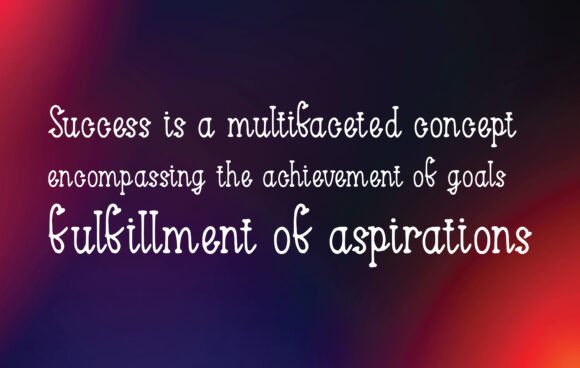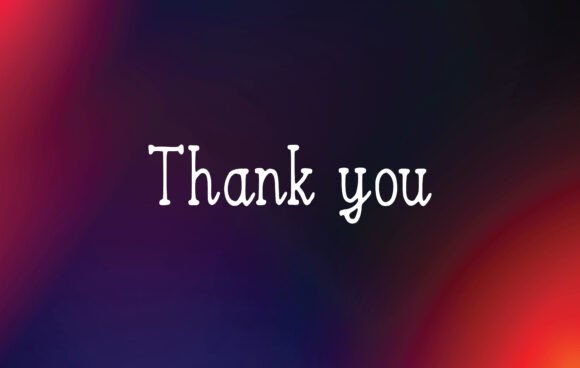
Unlock Your Creative Potential with Beau Font
Have you ever been in a moment of pure creative bliss, where the ideas just flow and your imagination knows no bounds? For designers, this feeling is a dream come true. And, what if you had the perfect tool to enhance this experience? Enter Beau Font, a beautiful handwritten font designed to elevate your creative ideas to new heights.
This stunning font is the perfect choice for crafting eye-catching logos, branding, and quotes that leave a lasting impression. Whether you’re working on a personal project or a client’s brief, Beau Font’s versatility and charm make it an invaluable asset in your design toolkit.
Key Features of Beau Font
- Size: The font is available in a single weight, making it ideal for use in various design projects.
- Resolution: Beau Font is designed to be scalable and legible at resolutions up to 1200 dpi.
- Unique Characteristics: Beau Font features a unique blend of modern and classic elements, with a focus on elegant lines and subtle details.
- Character Set: The font includes a comprehensive character set, including Latin, Greek, and Cyrillic alphabets, as well as punctuation and symbols.
- Language Support: Beau Font supports a wide range of languages, including English, French, German, Italian, and many others.
Beau Font Review
Beau Font is a beautiful and elegant typeface that has the potential to elevate any design project. Here’s my honest review.
- Elegant and refined design that’s perfect for high-end branding and luxury goods.
- Beautifully crafted letterforms with subtle flourishes that add a touch of sophistication.
- Great legibility, making it perfect for body text as well as headlines.
- Supports a wide range of languages, making it a great option for international brands.
- Limited font weight options, which may not be suitable for projects that require a lot of contrast.
- Not ideal for display-heavy designs, as the font can get lost in a sea of bold typography.
- Some users may find the font too ornate or busy for certain projects.
Beau Font is a great addition to any designer’s toolkit, but it’s not a one-size-fits-all solution. It’s perfect for projects that require elegance and sophistication, but may not be the best choice for more casual or display-heavy designs.
Beau Font is ideal for:
– Creating elegant, high-end branding materials
– Designing stylish, modern business cards
– Adding a touch of sophistication to presentations and reports
– Crafting beautiful, readable text for digital publications